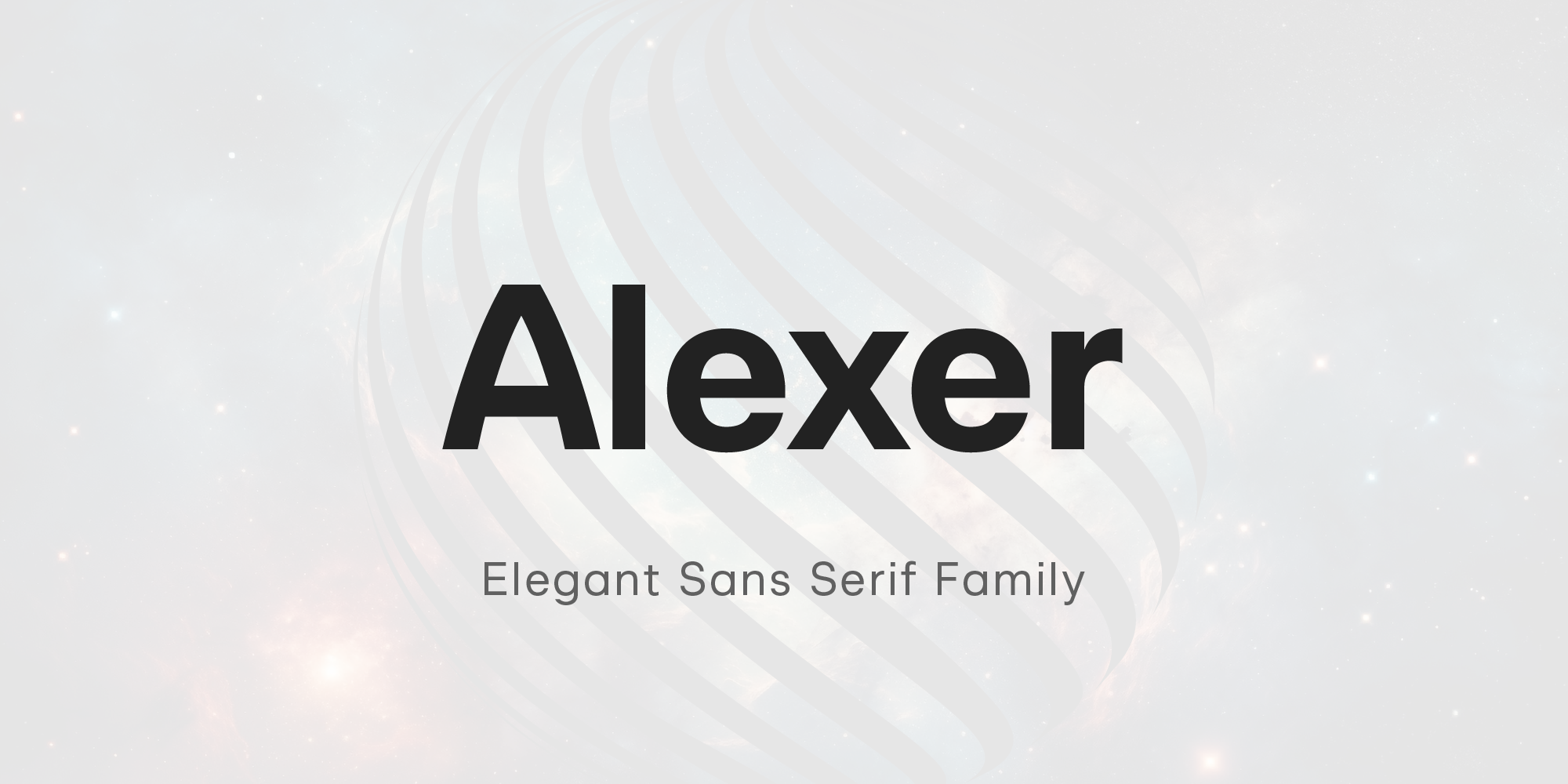
The Alexer Font is incredibly versatile, making it an excellent choice for a wide array of design projects that aim to convey a sense of modern sophistication, clean clarity, and approachable elegance. Imagine it bringing a sleek, professional edge to corporate branding and logos, making contemporary website designs pop with readability, or adding a refined touch to editorial layouts for fashion and lifestyle magazines. It's also fantastic for crafting crisp mobile app interfaces, unique event invitations with a minimalist aesthetic, and impactful signage that prioritizes modern aesthetics and legibility. Its inherent straightforwardness and balanced proportions make it perfect for any project striving to communicate innovation, clarity, and an uncluttered visual message.
What makes Alexer Font so exciting is its unique ability to blend a contemporary sans-serif structure with subtle humanist touches that give it warmth and character. It often features clear, open letterforms and a well-defined geometry that ensures excellent readability across various sizes and applications. This font doesn't just display text; it elevates the message, making your content feel modern, trustworthy, and effortlessly chic. Its balance of robust presence and remarkable clarity ensures that your designs are not only visually effective but also easily understood. It's a typeface that brings an atmosphere of contemporary elegance and functional beauty to your typography, guaranteeing your projects leave a polished and memorable impression.
The Alexer Font family typically includes a range of weights and stylistic alternatives to provide extensive creative flexibility. While specific options can differ, you can generally expect to find alternatives like Regular, Bold, and potentially a Light, Medium, or Italic version, allowing for diverse visual impact and hierarchy. These different weights and stylistic sets allow you to create dynamic visual structures and add nuanced artistic flair to your typography, ensuring a cohesive and thoughtfully designed outcome. This comprehensive family support ensures that whether you need a strong, impactful headline or a subtle, refined body text, Alexer Font Free Download offers the perfect elements to bring your modern vision to life.